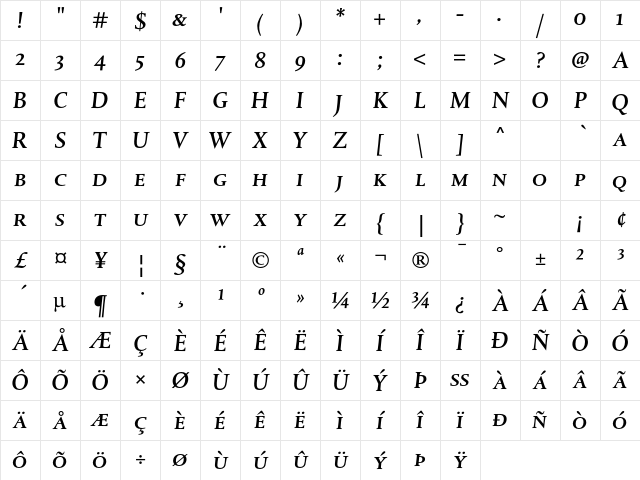
DTL Albertina T Caps Medium
Style: T Caps Medium
DTL Albertina Family
DTL Albertina T Caps Medium
Complete DTL Albertina T Caps Medium glyph index. Displaying only characters natively supported by DTL Albertina T Caps Medium font.
Design Context for DTL Albertina
DTL Albertina is a composed and adaptable typeface that performs quietly and consistently across a wide range of design contexts.